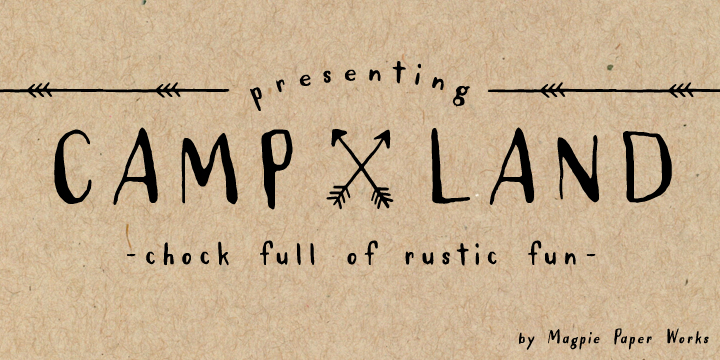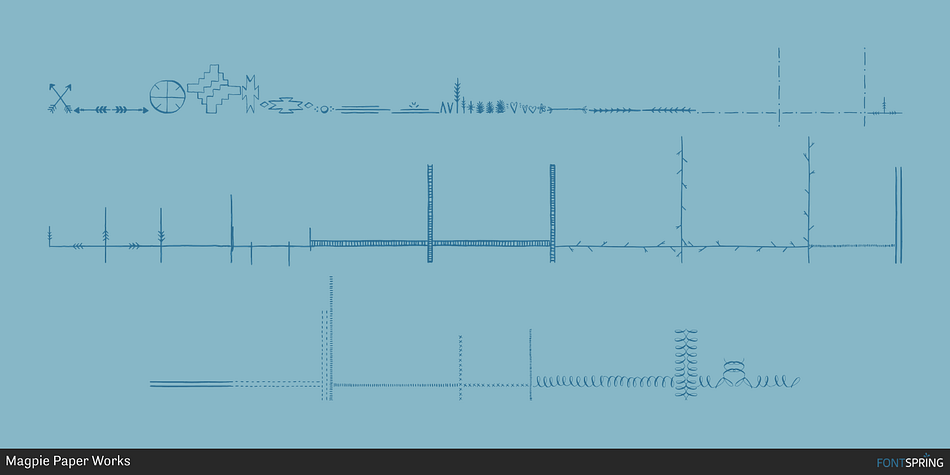
Campland Regular
Campland is a dingbat and hand drawn font family. This typeface has two styles and was published by Magpie Paper Works.
Campland from Magpie Paper Works is a rustic, hand-lettered, sans-serif font chock full of summer-camp fun.
Campland from Magpie Paper Works is a rustic, hand-lettered, sans-serif font chock full of summer-camp fun. This Opentype font features decorative glyphs and interlocking borders, as well as a complete uppercase & lowercase alphabet.